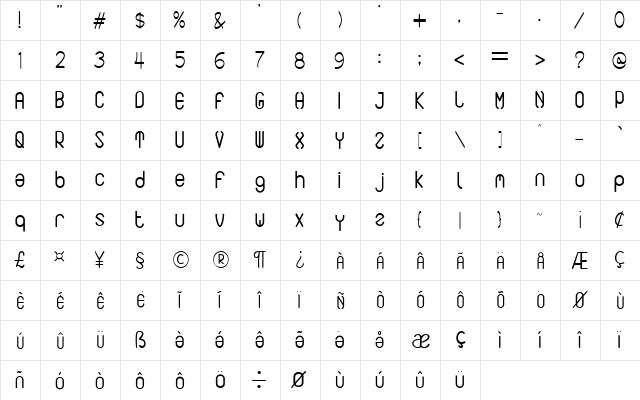
Torao Regular
Design Context for Torao Typeface
Torao takes a measured approach to typography — its balanced proportions and neutral character make it a reliable workhorse for both digital and print work.